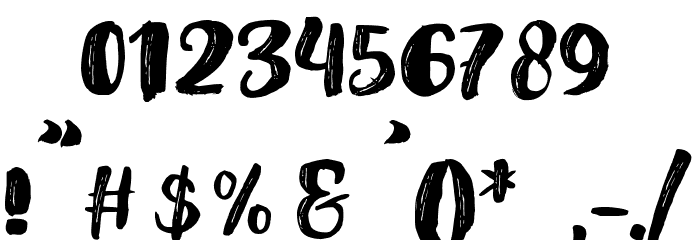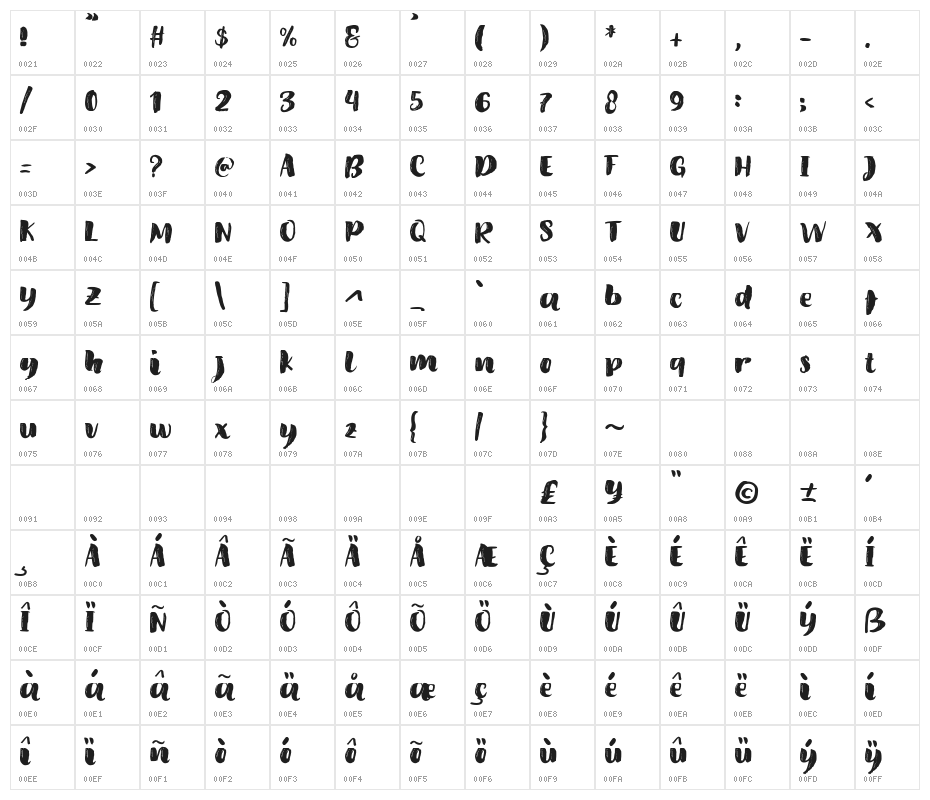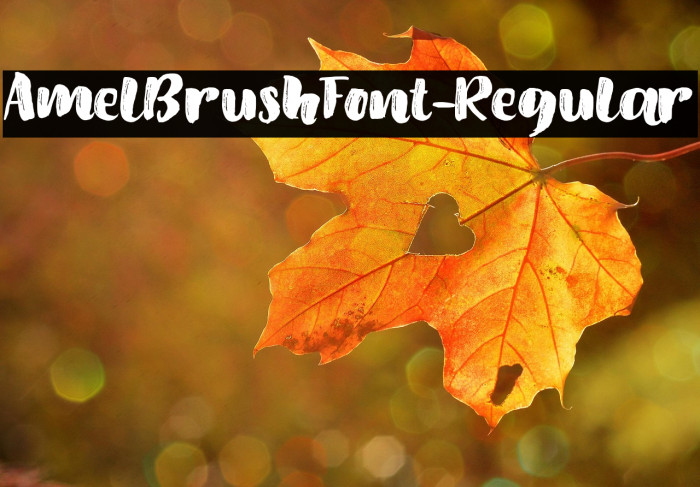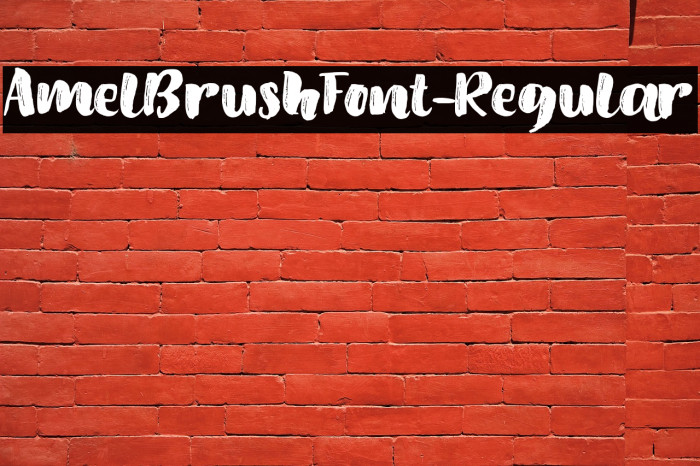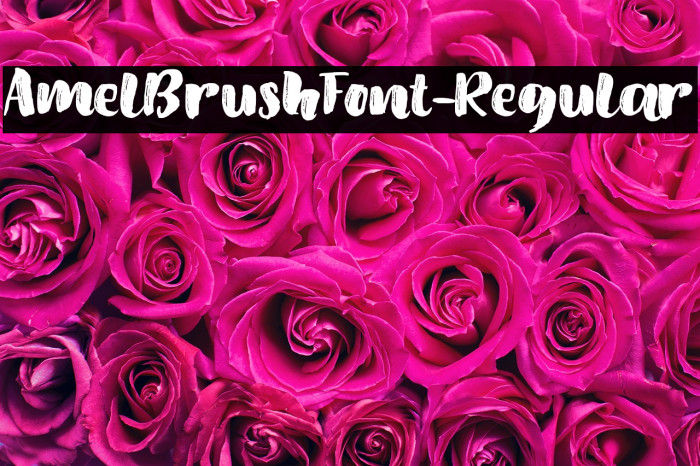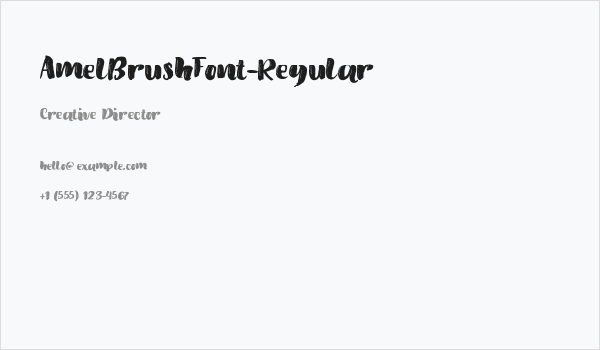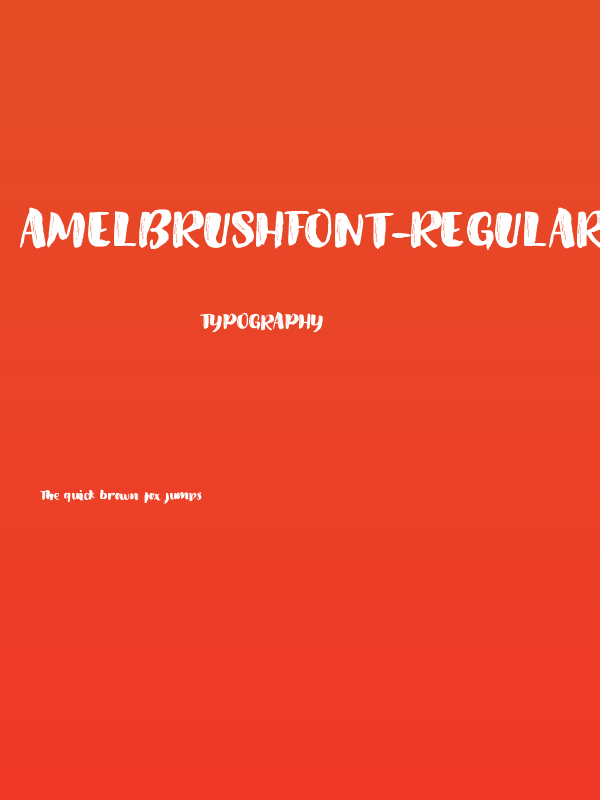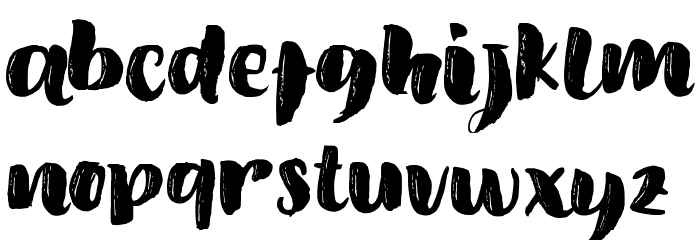
AmelBrushFont-Regular Font
AmelBrushFont-Regular Description
This font features a bold and expressive brush style, characterized by its dynamic and energetic strokes. The letters have a hand-painted appearance, with varying thicknesses that add a sense of movement and spontaneity. The uppercase and lowercase letters maintain a consistent style, with rounded edges and a slightly irregular baseline that enhances its casual and artistic feel. The numbers and special characters are equally expressive, making this font suitable for creative and informal designs. Its unique style captures attention and conveys a sense of creativity and individuality.
| Proposed Projects | Ideal for branding, posters, social media graphics, and any project requiring a creative and artistic touch. |